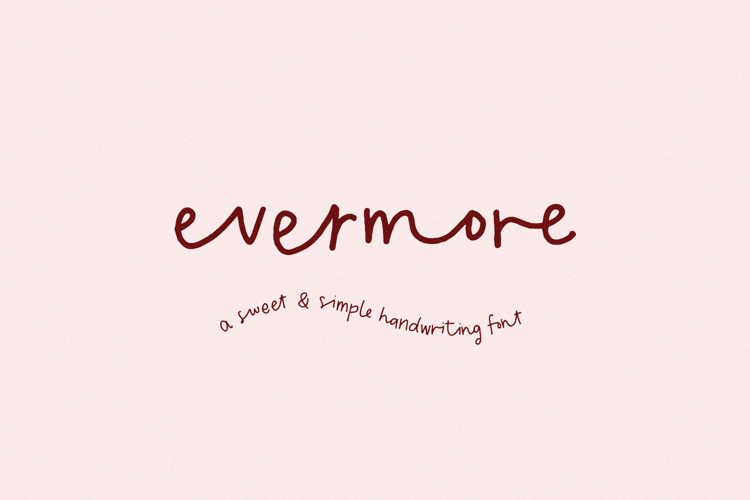
Evermore Script
Evermore is a lightly-textured handwriting font. Evermore is full of ligatures - keep them turned on in your design software for automatic replacements, which will make this font look like a handwritten note where letter connections flow with ease. Evermore is perfect for logos & branding, greeting cards, painted banners, digital planners, note-taking apps, Canva, Cricut projects, Silhouette projects, designing SVG files, laser cutting projects, & more.
Evermore includes:
- 26 alternates - lowercase a-z
- 151 ligatures - ab, ad, af, ag, ak, al, am, an, ap, ar, as, at, av, aw, ay, bl, ca, ce, ch, ci, cl, co, cr, cu, dd, ed, ef, eg, el, em, en, ep, er, es, et, ev, ew, ey, fa, fe, ff, fi, fl, fo, fu, ga, ge, gg, gi, go, gu, ha, he, hi, ho, hu, id, if, ig, il, im, in, ip, ir, is, it, iv, iw, ky, la, le, li, ll, lo, lu, ly, ma, me, mi, mm, mo, mu, my, na, ne, ng, ni, nn, no, nt, nu, ny, od, of, og, ol, om, on, oo, op, or, os, ot, ov, ov, ow, oy, ph, pp, ra, re, ri, ro, rr, ru, sa, se, sh, hi, sl, sm, sn, so, sp, sr, ss, st, su, sw, ta, te, th, ti, to, tt, tu, ud, uf, ug, ul, um, un, up, ur, us, ut, uv, uw, uy, va, wh